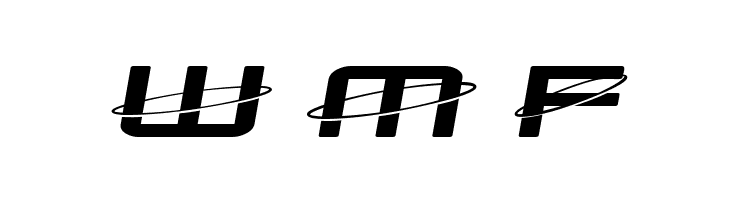
Kryogenic Font
A bold, futuristic font with geometric and dynamic design elements.
SF Gothican Oblique Font
Font by www.fugit-tempus.de
A modern, oblique font with narrow, elongated characters.
Old Time Ad Dings One Font
Retro dingbat set with vintage advertising illustrations.
Frantic JL Font
A bold, angular font with sharp serifs and a modern, edgy style.
AmyBats4 Font
Font by bob istheowl http://luc.devroye.org/bobistheowl.html
Photographic portrait glyphs in a decorative, high-contrast style.
AmyBats3 Font
Font by bob istheowl http://luc.devroye.org/bobistheowl.html
Photographic silhouette display font with unique images for each character.
SF Phosphorus Fluoride Font
An elegant, high-contrast serif font with a classic italic style.
Freewave Remix Font
A pictogram-based decorative font with diverse, detailed icons.
SF Florencesans Exp Italic Font
A modern, italic sans-serif font with expanded width and consistent strokes.
SF DecoTechno Condensed Font
A bold, condensed font with a modern, technological style.
SF Americana Dreams SC Font